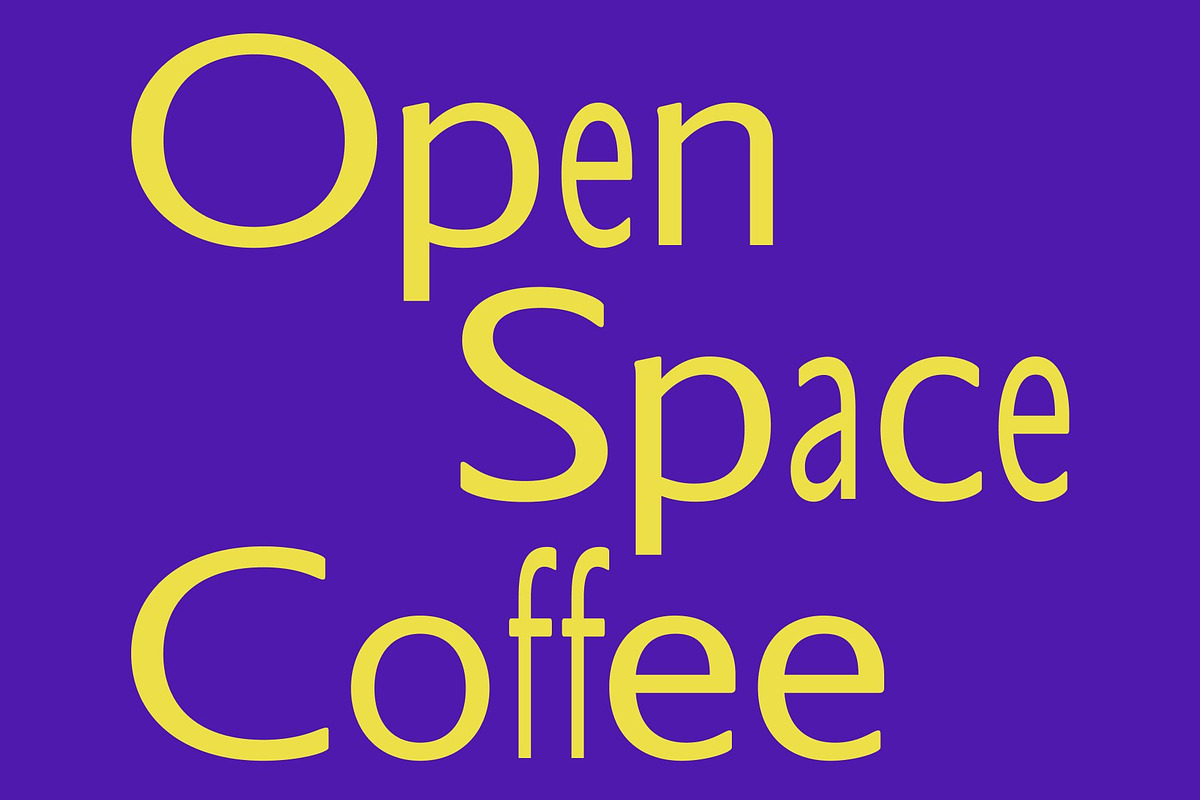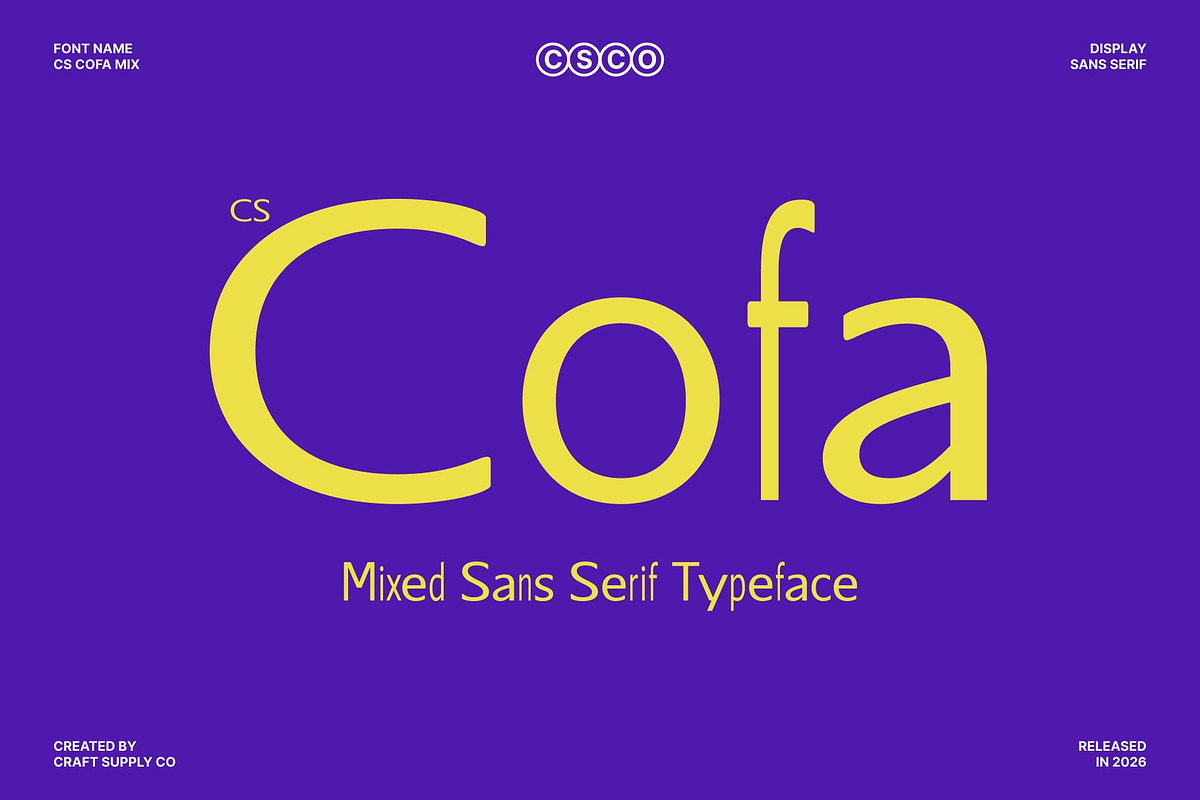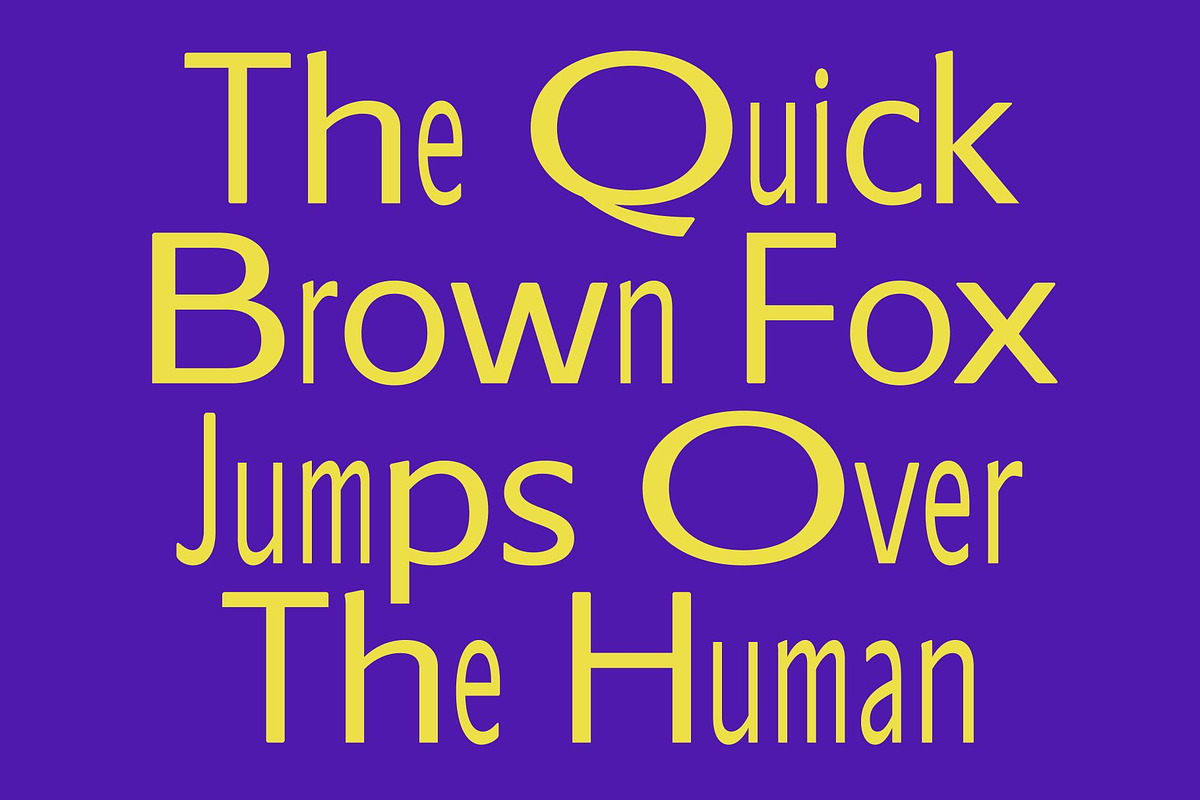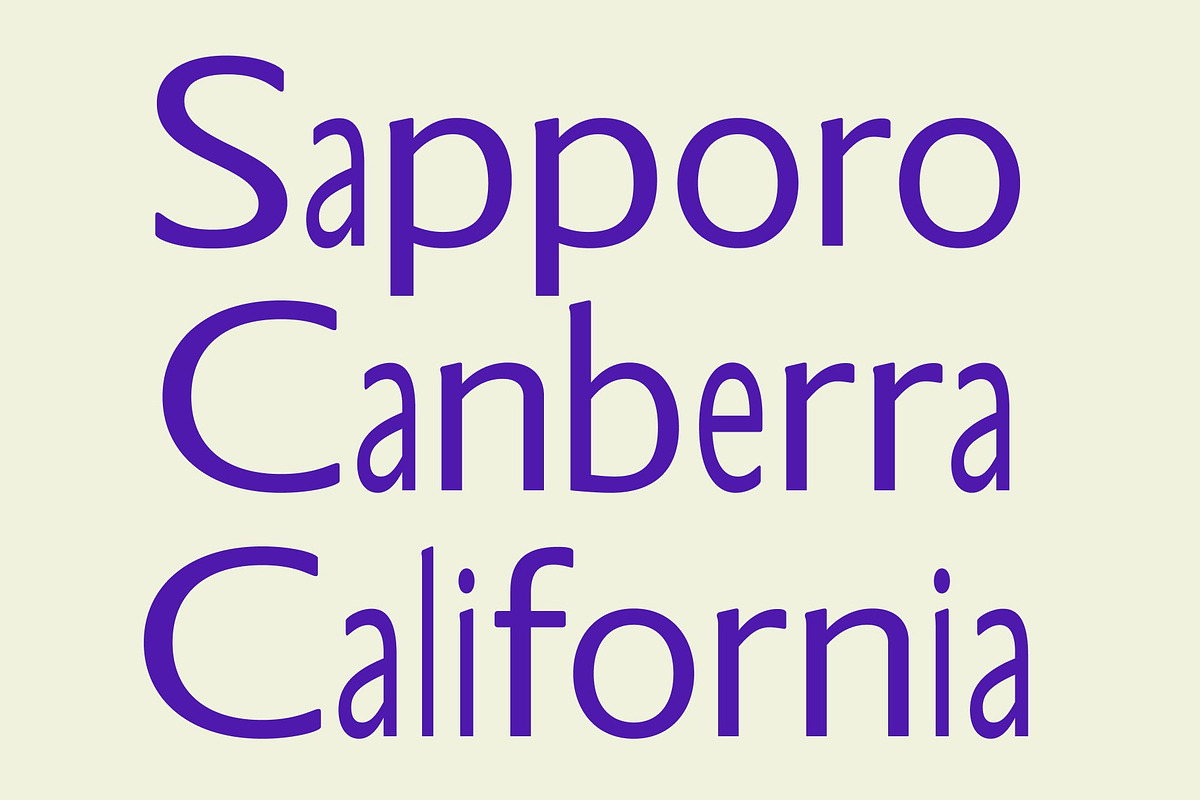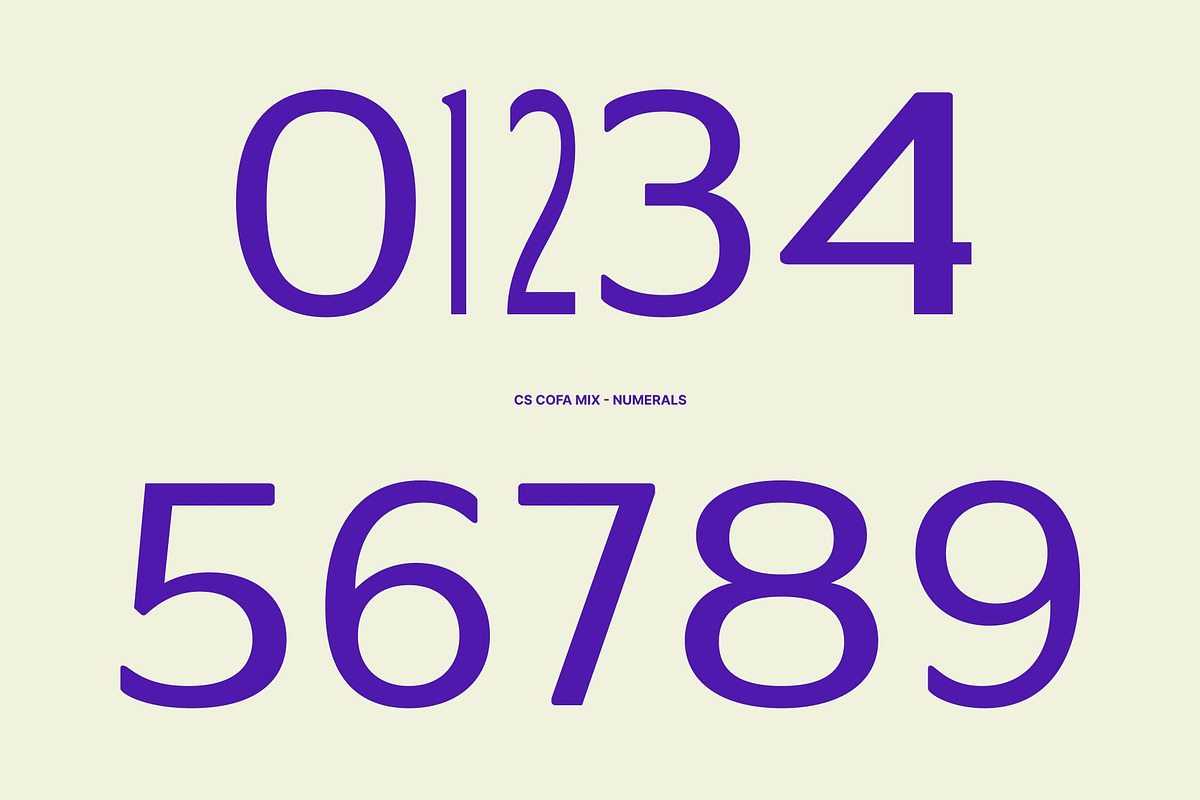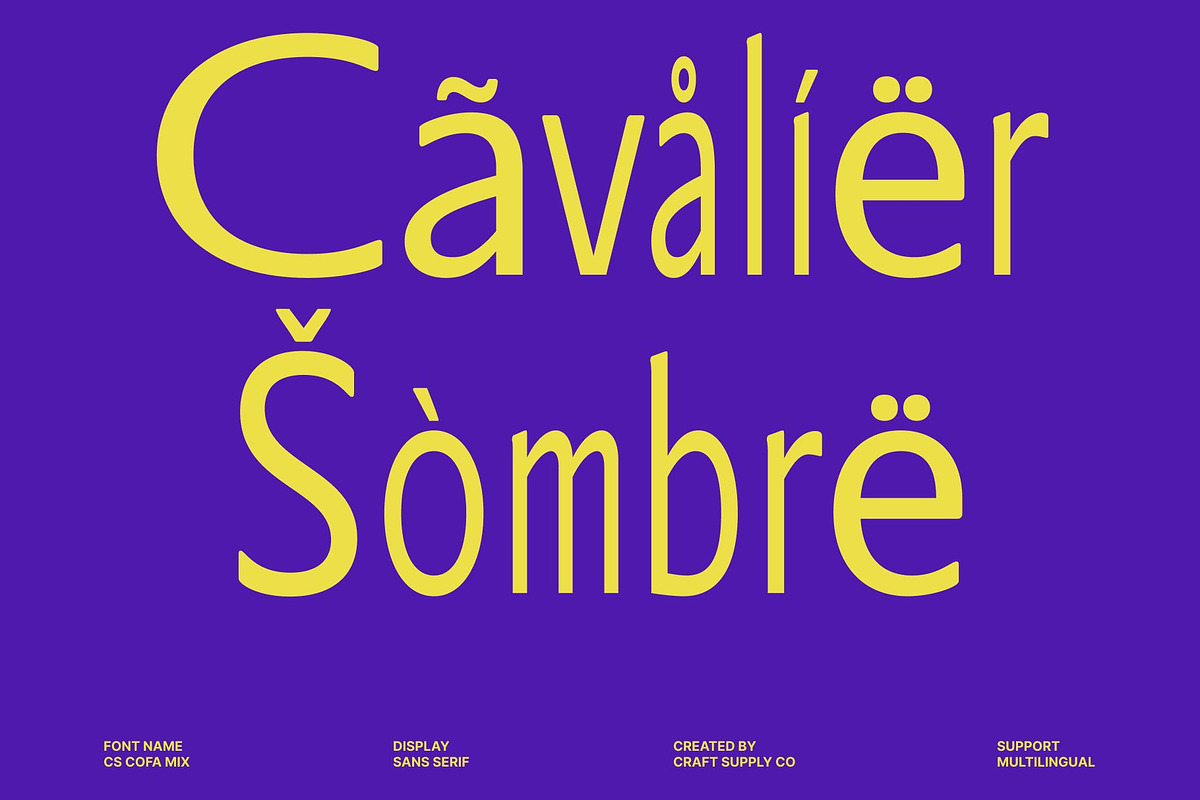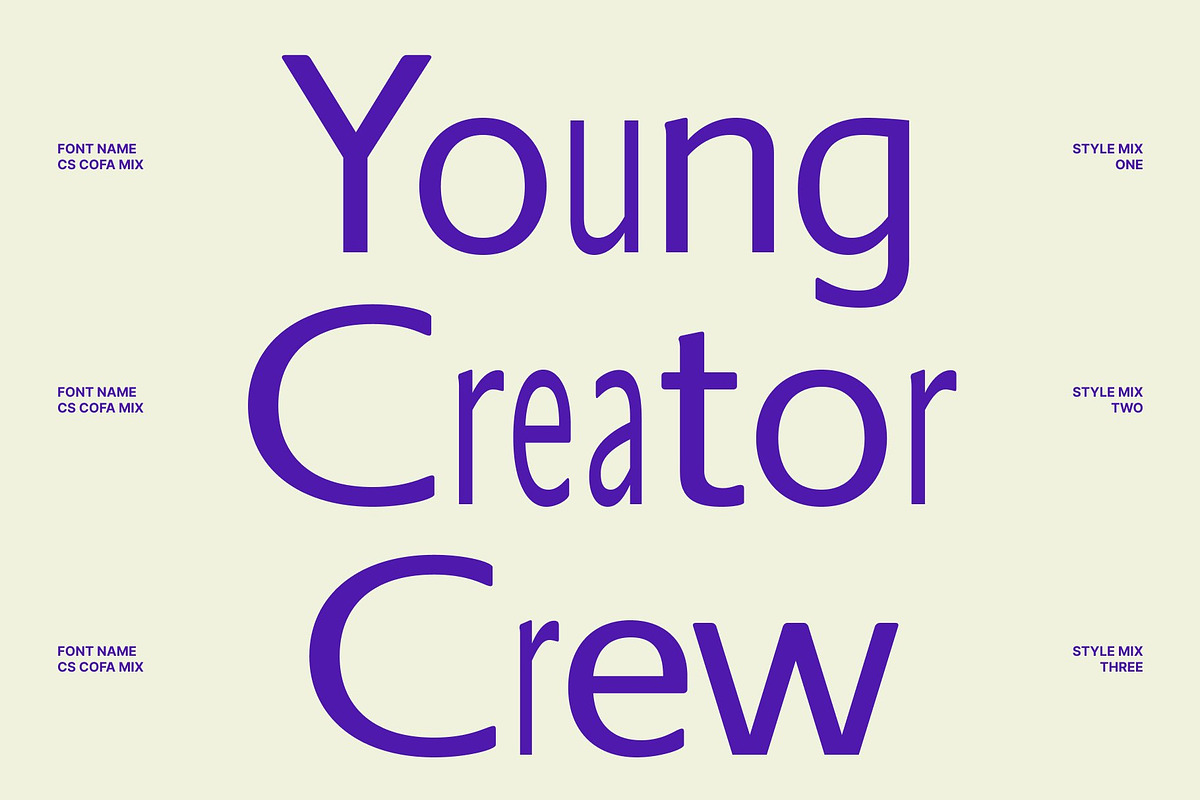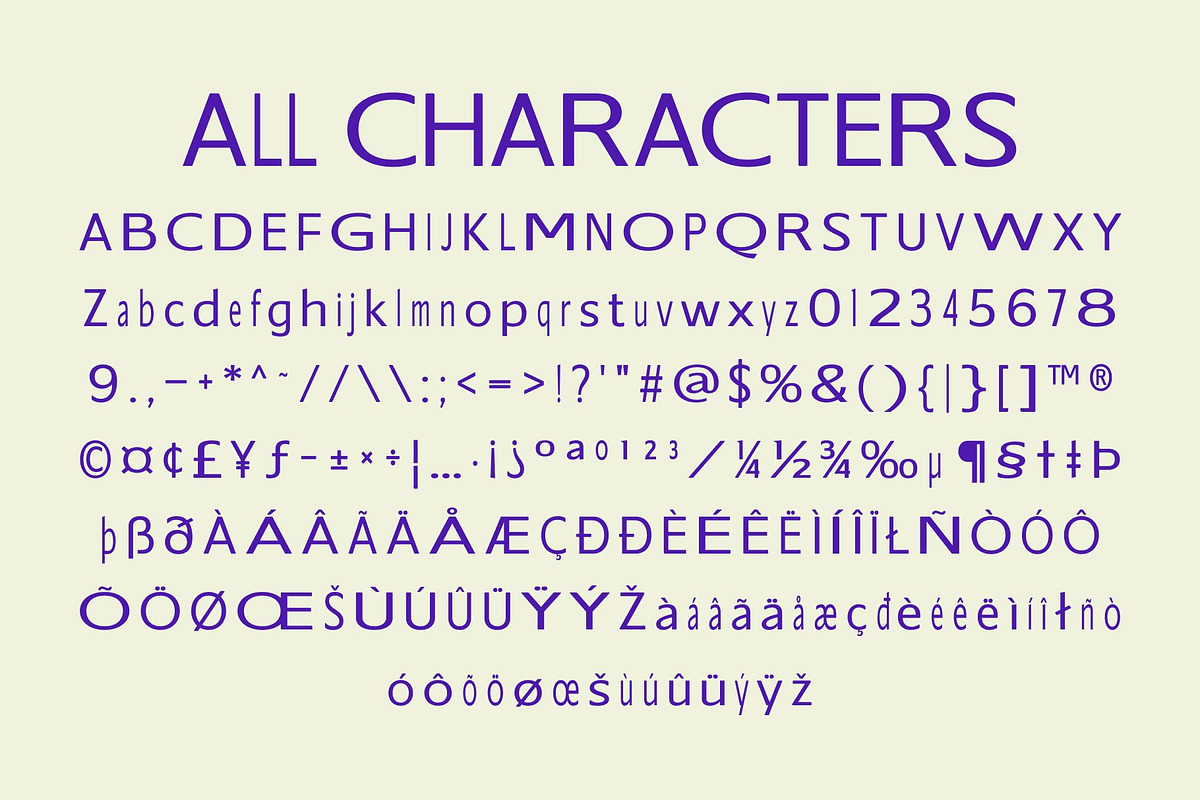
CS Cofa Mix
CS Cofa Mix – Modern Sans Serif Font: Clean Simplicity with Contemporary Professionalism
Modern Sans Serif with Mixed Style Character This is a modern sans serif font designed to embody clarity, elegance, and contemporary sophistication. Built with clean lines and balanced proportions, this typeface introduces a distinctive mixed-style concept that adds subtle contrast and visual rhythm to every composition.
A Refined Blend of Bold and Regular Letterforms The defining feature of this font lies in its thoughtful fusion of bold and regular styles. This mixed-weight approach creates a smooth typographic hierarchy that enhances readability while adding depth and personality. The contrast between weights brings a dynamic flow to layouts, making typography feel engaging and polished without compromising its clean and understated character.
Minimalist Design with Strong Professional Appeal This font embraces modern minimalism through sleek geometry and simplified forms. Free from unnecessary ornamentation, it focuses on clarity and functionality, ensuring that content remains the primary focus. Its balanced structure communicates professionalism and confidence, making it an ideal choice for projects that require a sophisticated and contemporary visual tone.
Perfect for Branding, Presentations, and Modern Communication From corporate branding and presentations to marketing materials and digital content, this font adapts effortlessly across a wide range of applications. Its excellent readability ensures strong performance in both print and digital environments, while its versatile design integrates seamlessly with various visual styles.
CS Cofa Mix One
CS Cofa Mix Two
CS Cofa Mix Three